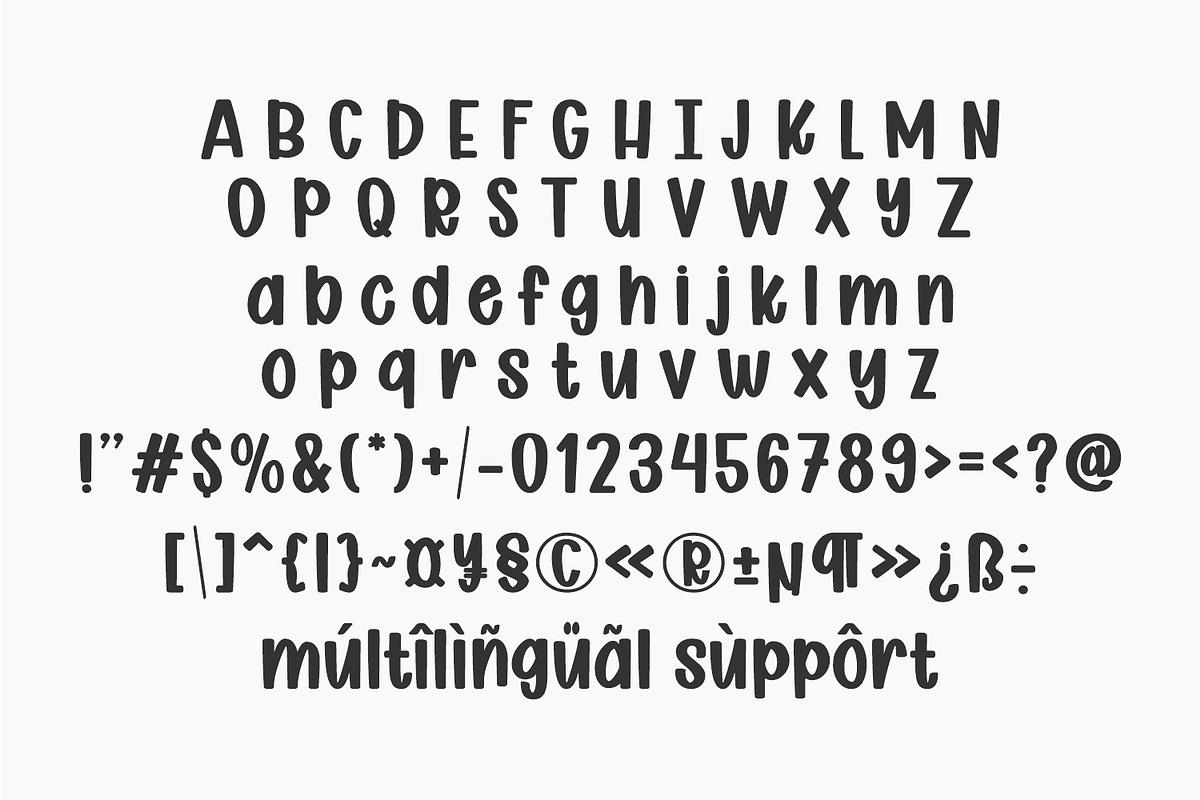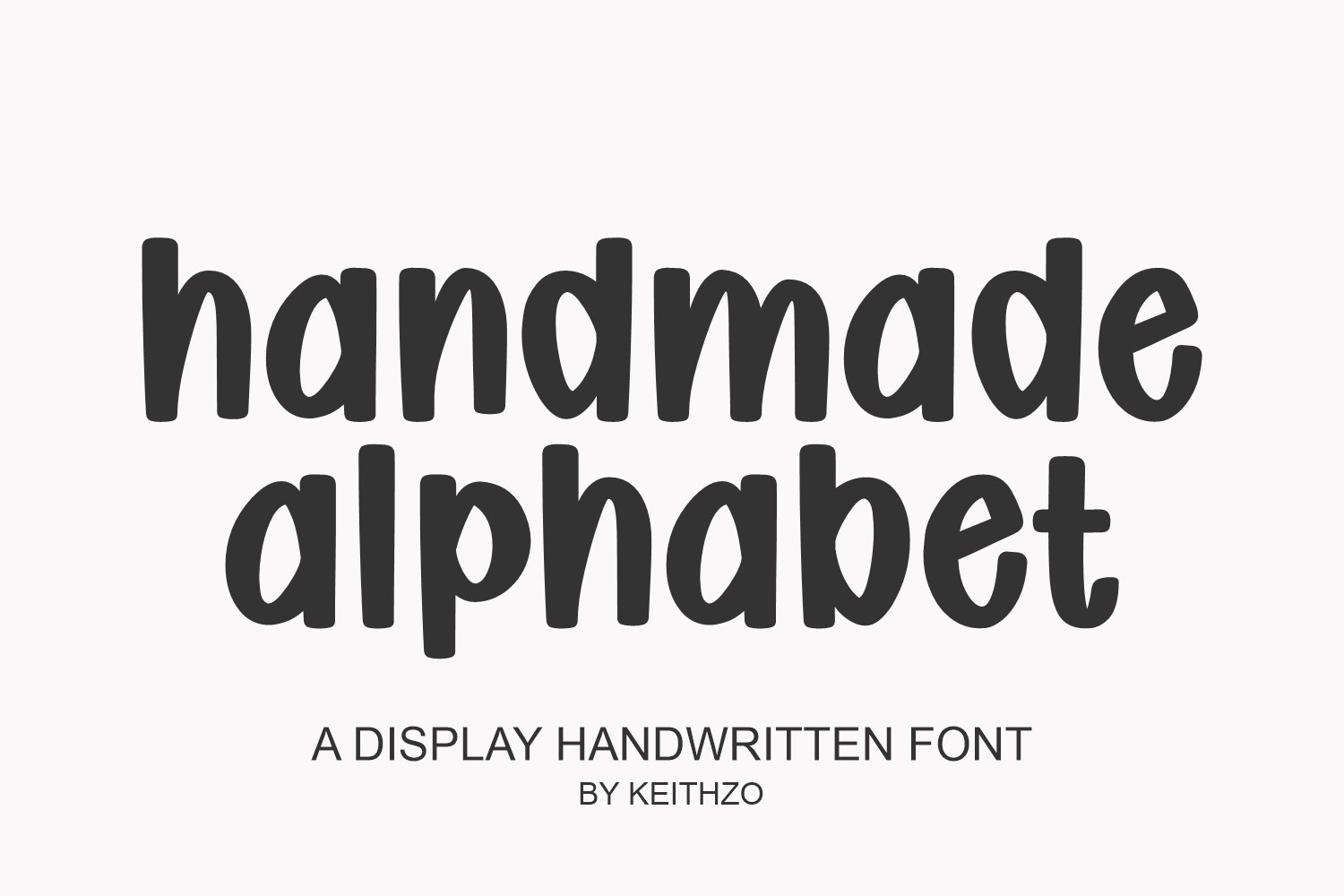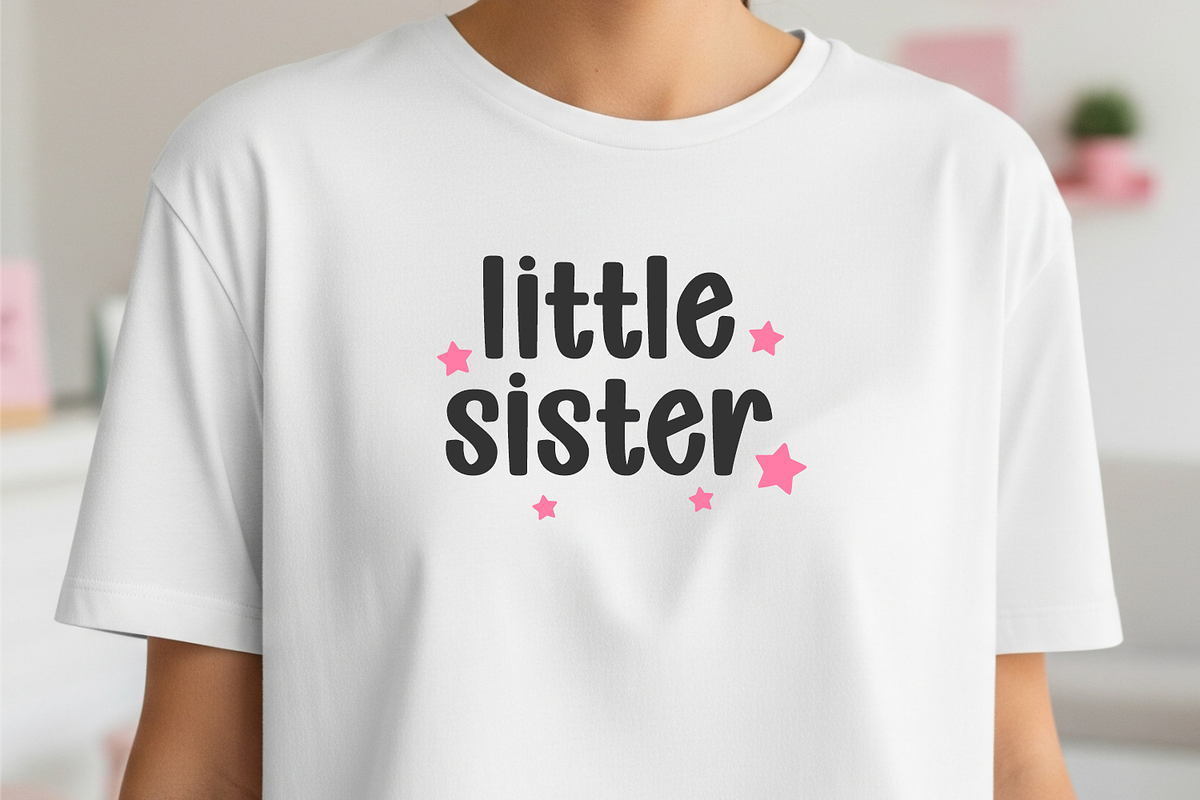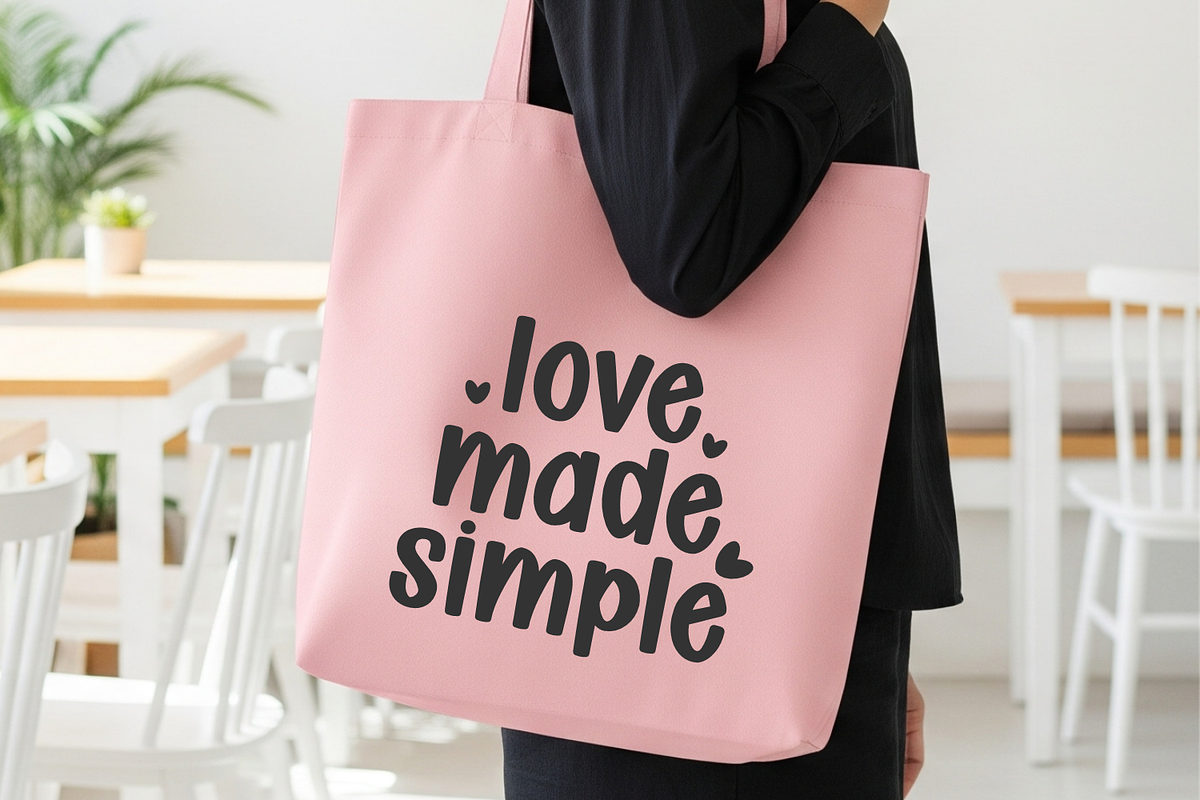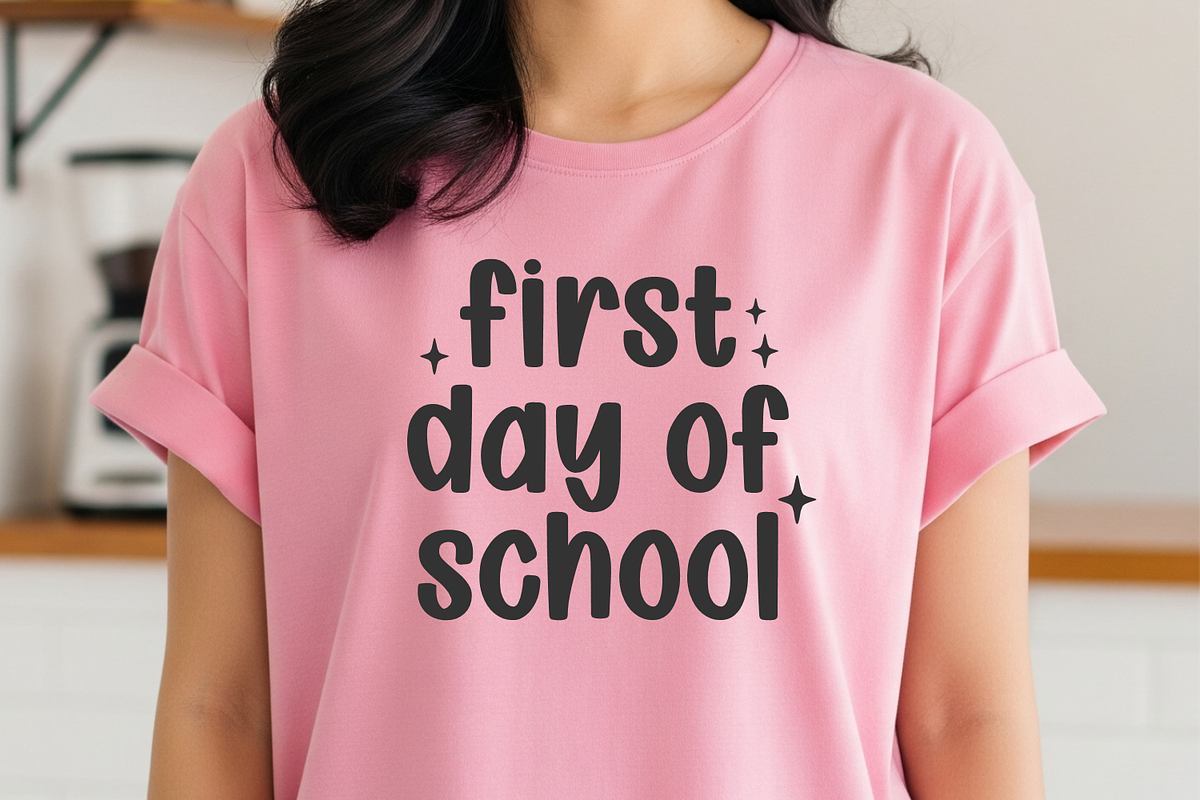
Handmade Alphabet - Notes Font
🎨 Handmade Alphabet: A Bold Journey into Playful Creativity Unlock a world of imagination with Handmade Alphabet, an adorable and expressive handwritten font designed to turn every project into a vibrant playground of joy. Meticulously crafted with a bold stroke and a whimsical spirit, this font captures the raw, authentic charm of hand-lettering while maintaining perfect readability for all ages.
Why Handmade Alphabet is the Perfect Choice:
🏫 The Ultimate Educator's Companion: Specifically designed with teachers and learners in mind. Its clear, bold characters make it ideal for classroom posters, educational worksheets, school bulletin boards, and children's learning materials.
💖 Sweetness for Valentine’s Day: Bring a "handmade with love" feel to your Valentine's Day creations. Whether you're designing romantic greeting cards, cute "Be Mine" stickers, or heartfelt gift tags, this font adds a personal and caring touch.
👶 Designed for Kids & Childhood Magic: From children’s book covers to nursery wall art and birthday party invitations, Handmade Alphabet radiates a playful energy that resonates with the young and the young-at-heart.
✍️ Bold & Expressive Personality: Unlike thin scripts, this font features a confident, thick stroke that stands out beautifully on both digital screens and physical prints. It’s the go-to choice for bold branding, quirky logos, and eye-catching social media quotes.
Whether you are decorating a classroom, planning a playful brand identity, or sending a sweet Valentine note, Handmade Alphabet provides the creative spark you need